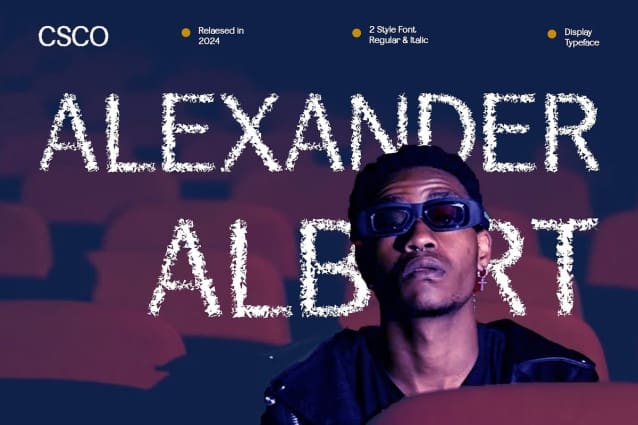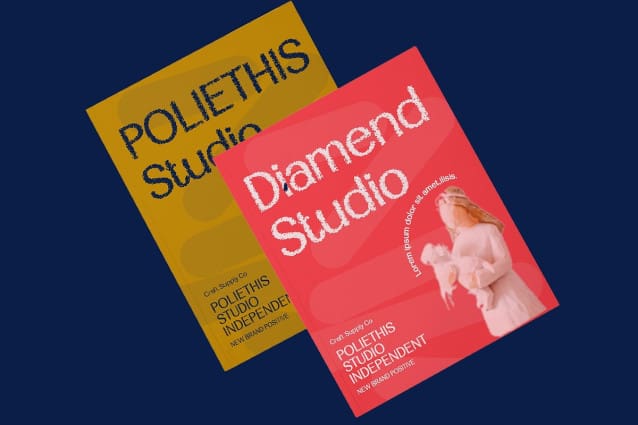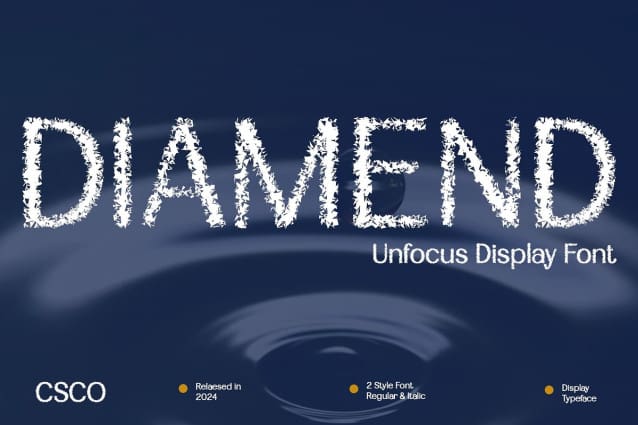
Diamend Unfocus Font
Diamend Unfocus Font: Unconventional Display Typography. Regular Weight with Low Contrast Diamend Unfocus boasts a regular weight sans-serif design with low contrast, offering a unique visual appeal suitable for diverse display needs.
Unconventional Aesthetics Featuring an unfocused effect, This font defies conventional design norms, presenting an unconventional and chaotic aesthetic that captures attention effortlessly.
Embracing Imperfection Celebrating imperfections and unpredictability, This font embraces disorder, making it an excellent choice for projects seeking a touch of edginess and spontaneity.
Ideal for Diverse Displays From daring posters to avant-garde headlines, This font thrives in various display applications, infusing designs with a captivating sense of disorderly charm.
Embrace the Unconventional This font challenges design conventions with its regular weight, low-contrast sans-serif style, and unfocused effect. Embracing imperfection, it offers a unique charm perfect for designers seeking to inject creativity and spontaneity into their display projects. Step into the world of the unconventional with This font.